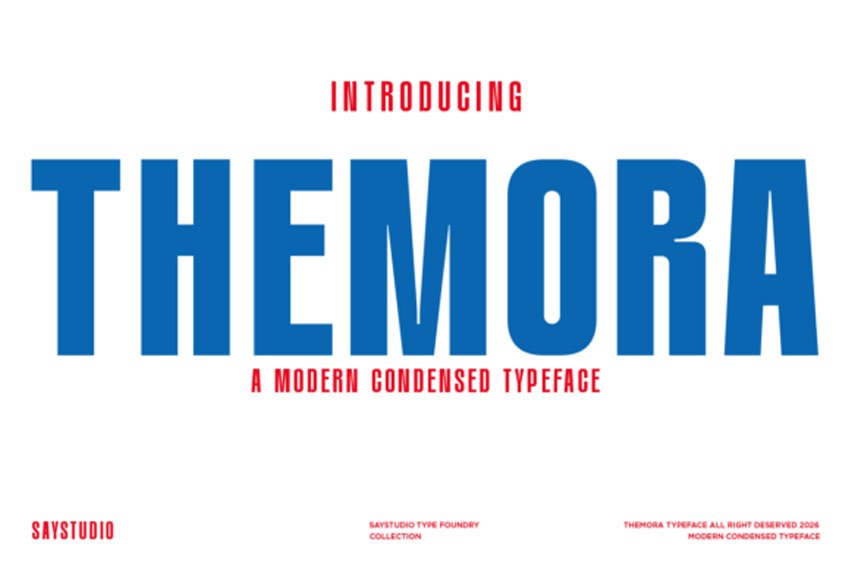
Themora Font is a modern condensed typeface designed to deliver strong visual impact with a clean and contemporary style. Perfect for posters, sports branding, editorial headlines, advertising layouts, and logo design, Themora provides a dynamic and confident look that stands out in both digital and print media. Its modern condensed proportions create a sense of strength, professionalism, and modern design aesthetics.
Whether used for branding, marketing campaigns, packaging, or impactful headlines, Themora helps designers create bold and memorable visual compositions.